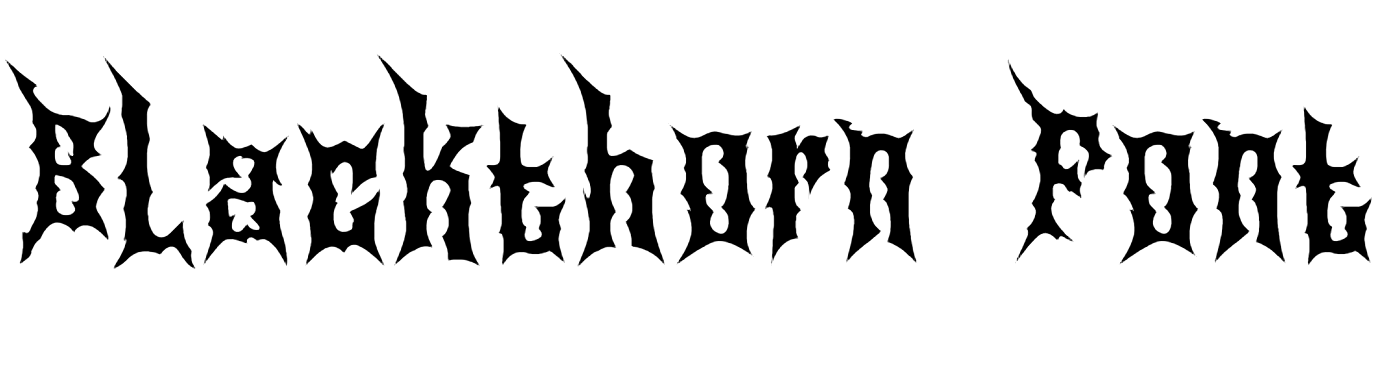
#Black thorn Font
Blackthorn
Blackthorn is a gothic font designed by Kong Font (2021). Sharp, dark and dramatic, it follows the blackletter tradition of old European manuscripts. It's a free download, and you can try it with your own text in the preview above first.
- Designer: Kong Font
What You Can Type With Blackthorn
Blackthorn only has lowercase letters. Capitals will show up in a different font or as empty boxes, so type everything in lowercase. There are no numbers, so you'll need a second font for dates, prices or phone numbers. Punctuation is limited, so look at the character map if you need a specific symbol. There are no accented letters like é or ñ, so it's best kept to English text.
Where Blackthorn Works Best
Blackthorn is a natural fit for tattoos, metal band logos and dark fantasy titles. Blackletter is very hard to read in all caps, so type in normal upper and lowercase.
Who designed Blackthorn font?